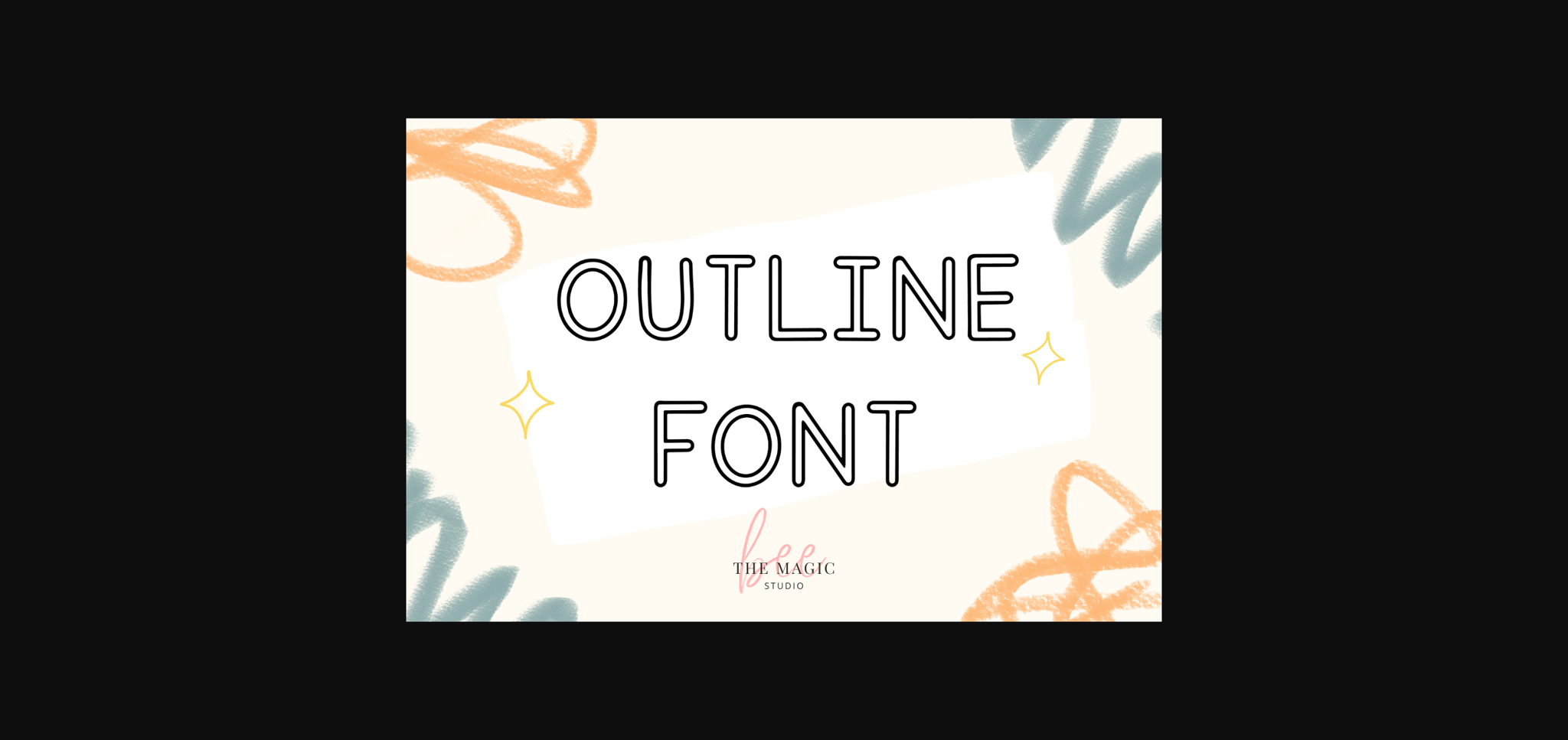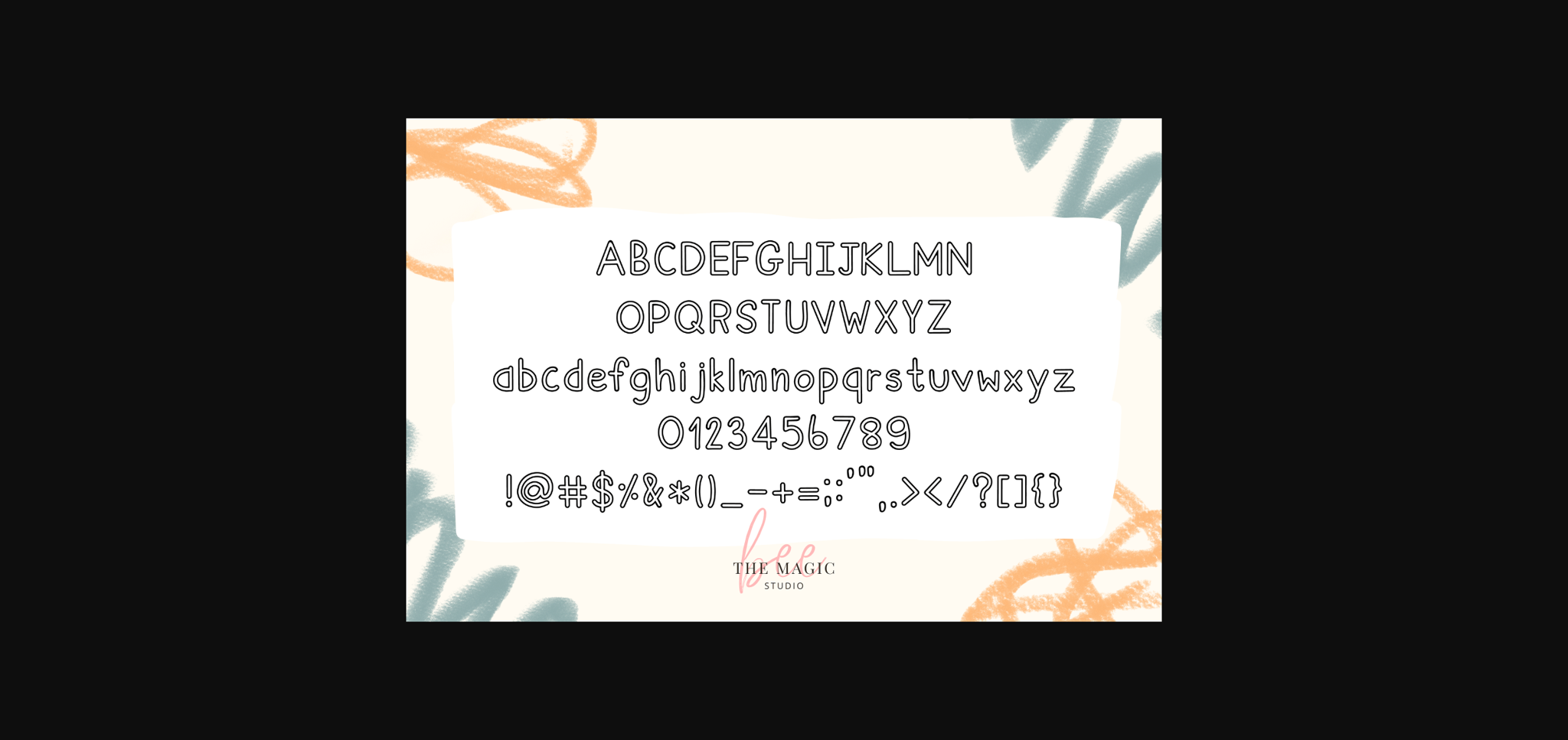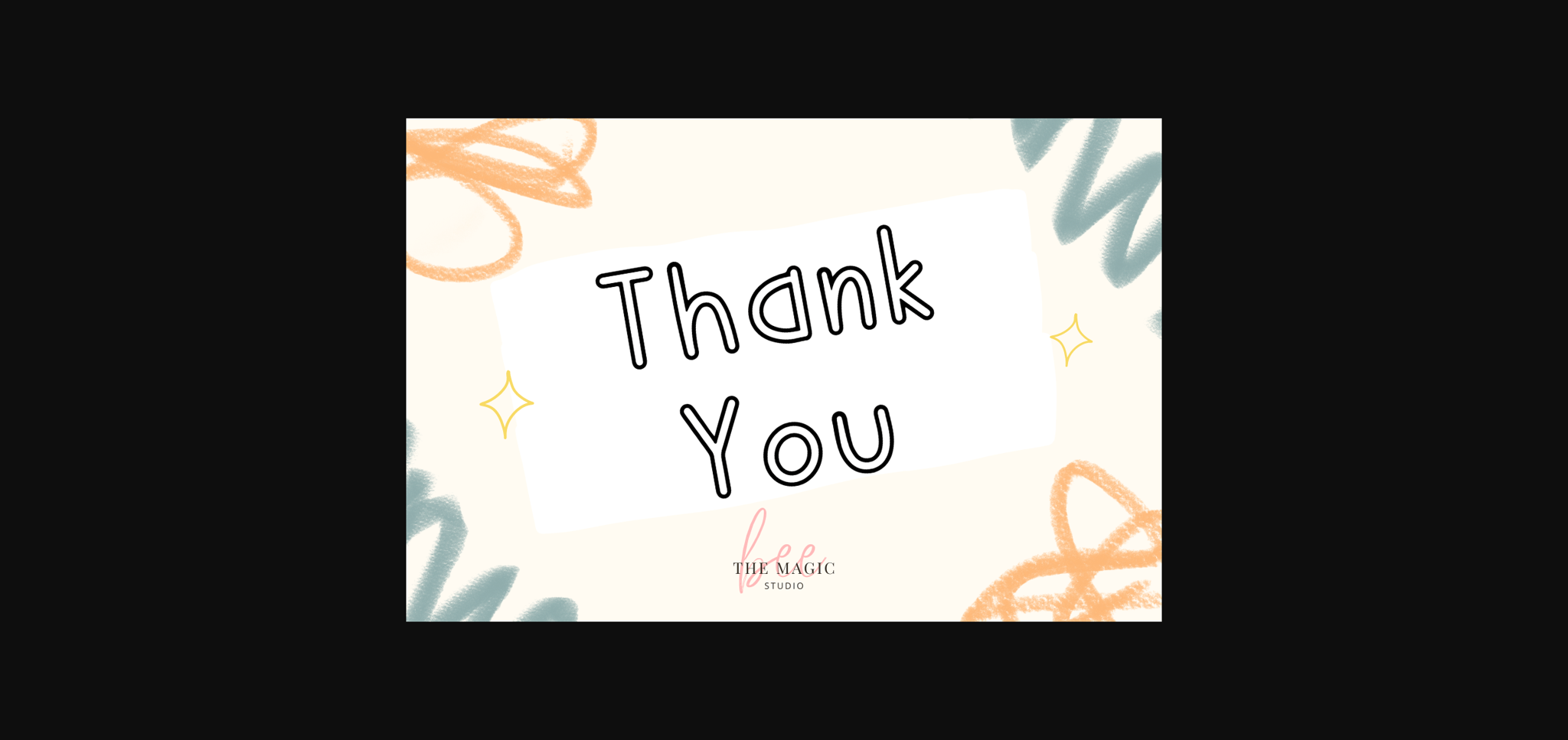
HomeSans Serif FontsOutline Font Sans Serif Fonts Outline Font FacebookXPinterestWhatsApp 1 of 5 ... Outline Font Poster 2... Outline Font Poster 3... Outline Font Poster 4... Outline Font Poster 5... About Outline Font Outline is a fun and casual sans-serif font. Whether you’re using it for crafts, digital design, presentations, or making greeting cards, this font has the potential to become your favorite go-to font, no matter the occasion! DOWNLOAD NOW People also explored Hello Adventure Font Cheesy Honey Font Pumpkin Butter Font Farming Times Font Cawes Font Margaret Font Keilla Font Sunrise Font Angel Font 366 0 TagsOutlineOutline Font Previous articleAnchovie FontNext articleSahnaz Font LEAVE A REPLY Cancel reply Comment: Please enter your comment! Name:* Please enter your name here Email:* You have entered an incorrect email address! Please enter your email address here Website: Save my name, email, and website in this browser for the next time I comment. Personal Use Free Beloved Script Personal Use Free Read more about this font Panaroe Personal Use Free Read more about this font Droid Personal Use Free Read more about this font Aragon Personal Use Free Read more about this font BLOG How to Install and Use Fonts on Windows, macOS, and Web Projects How to Install and Use Fonts on Windows, macOS, and Web Projects Fonts are a crucial part of design and branding. Whether you’re designing a... Top 10 Handwritten Fonts That Elevate Your Designs Using Fonts in Digital Marketing: Tips to Strengthen Your Brand Identity Free Fonts Risk: Why Free Fonts Can Be Dangerous for Designers